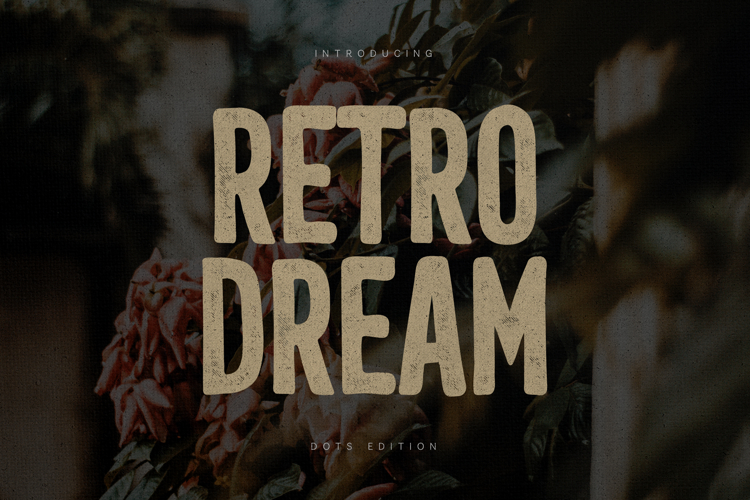
Retro Dream Vintage Distressed Sans Serif Font
Retro Dream is a bold vintage-inspired sans serif typeface designed with a textured distressed surface that captures the character of classic retro typography while maintaining a strong modern structure.
The letterforms combine solid geometric shapes with a worn grain texture, giving the typeface a nostalgic yet contemporary appearance. The rough surface introduces subtle imperfections that create depth and visual personality, making the typography feel authentic and expressive.
Retro Dream was designed as a display-focused typeface, making it particularly effective in large typography where the texture and bold shapes can fully express their character. The balanced proportions and slightly rounded forms create a harmonious rhythm across headlines and graphic compositions.
The distressed texture evokes the aesthetic of aged print, vintage posters, and classic lettering, while the clean underlying structure keeps the typeface versatile for modern design work.
Retro Dream works especially well in projects such as:
• vintage-inspired branding
• retro poster design
• classic typography layouts
• packaging design
• editorial compositions
• headline typography
• nostalgic visual identities
• modern retro graphic design
With its combination of bold shapes and textured vintage character, Retro Dream offers a distinctive display typeface that brings nostalgic warmth and expressive typography to modern design compositions.